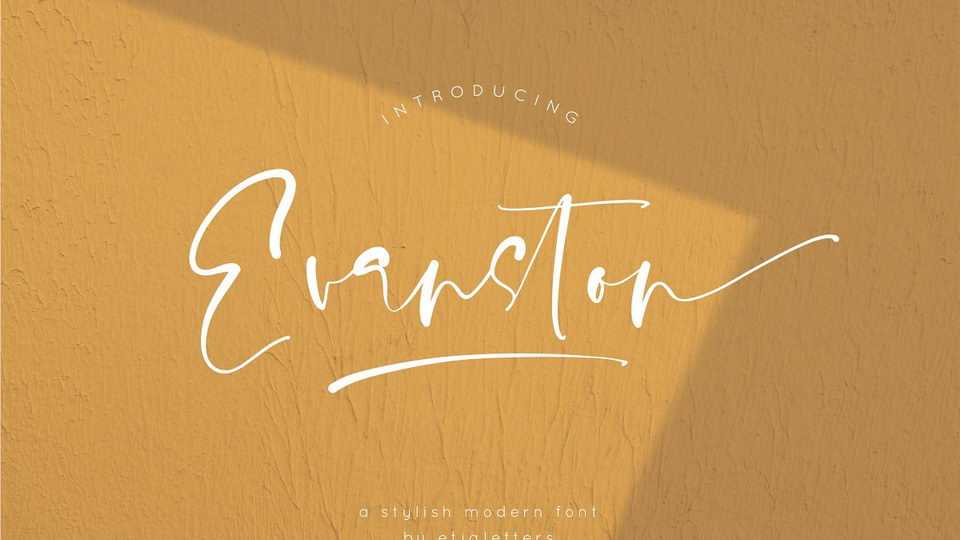
Evanston Script Font › Fontesk – Download Grátis
Download Evanston font, a handmade modern script typeface with a stylish signature look. Evanston can be used for website, branding, wedding stuff and etc.
Designer: Etigletters